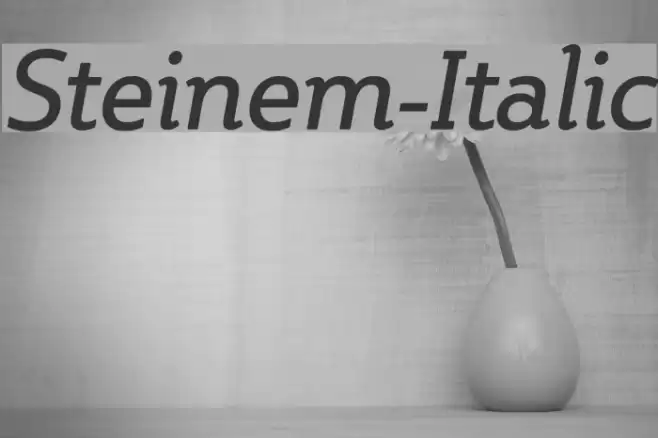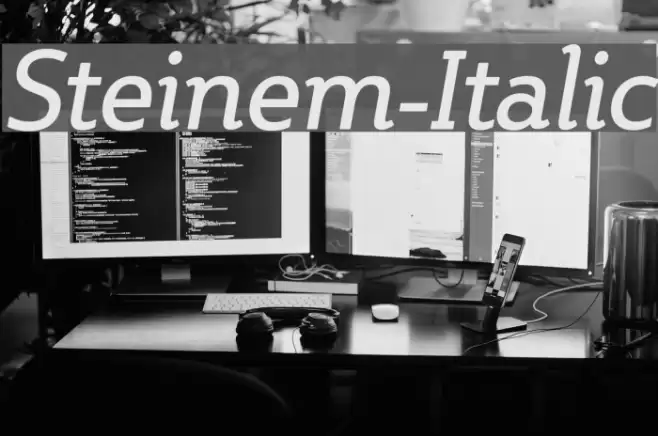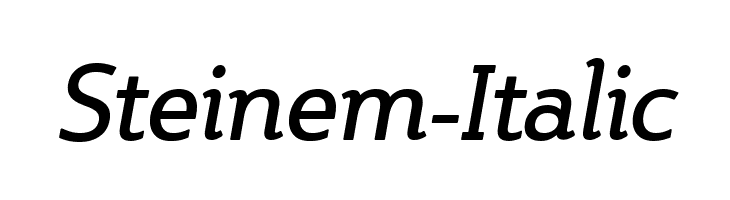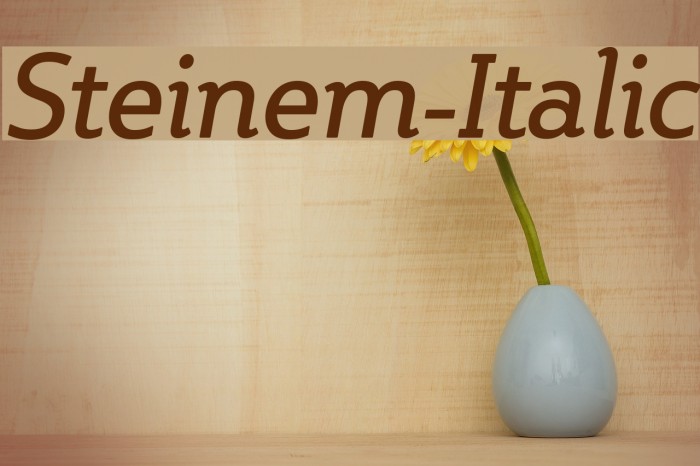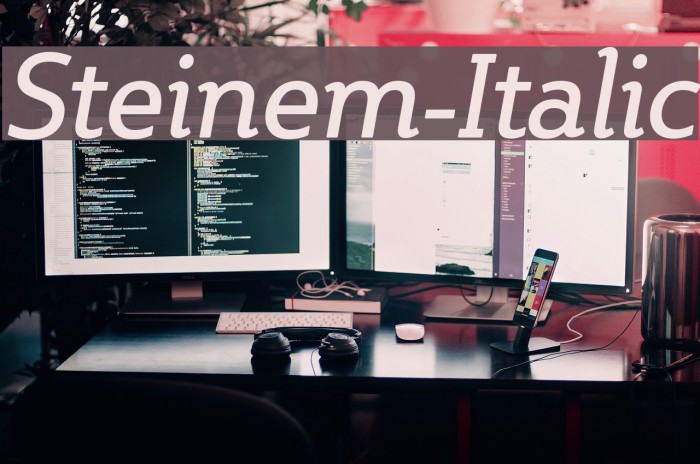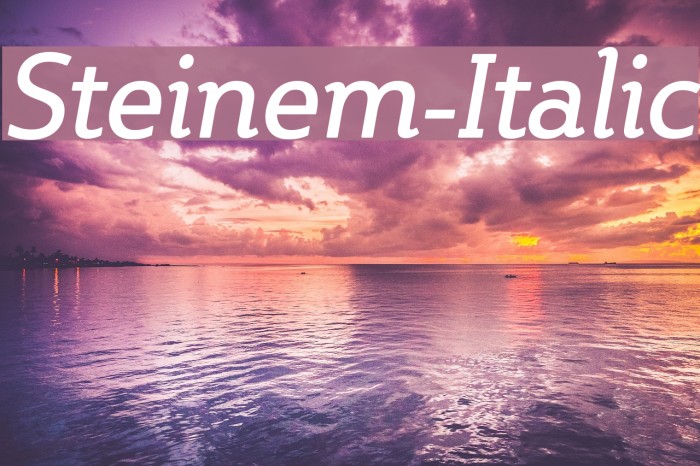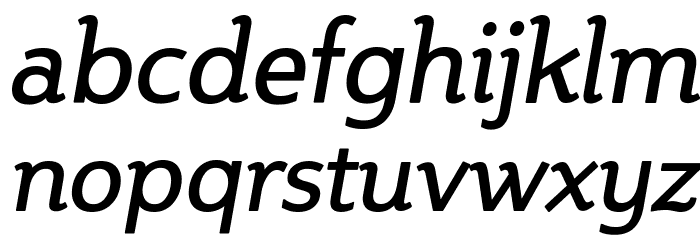
Steinem-Italic Font
Steinem-Italic Description
This font exhibits a classic italic style with a smooth, flowing appearance that adds elegance to any text. The letters are slightly slanted, giving a sense of motion and sophistication. The uppercase characters are well-proportioned, while the lowercase letters maintain a consistent baseline, enhancing readability. The numerals are clear and distinct, making them suitable for both formal and informal contexts. Special characters are designed with the same attention to detail, ensuring they blend seamlessly with the rest of the typeface.
An elegant italic font with smooth, flowing characters from Uncategorized fonts.
- Proposed Projects: Ideal for wedding invitations, elegant branding, book covers, and editorial design.
- Overall Style: Classic